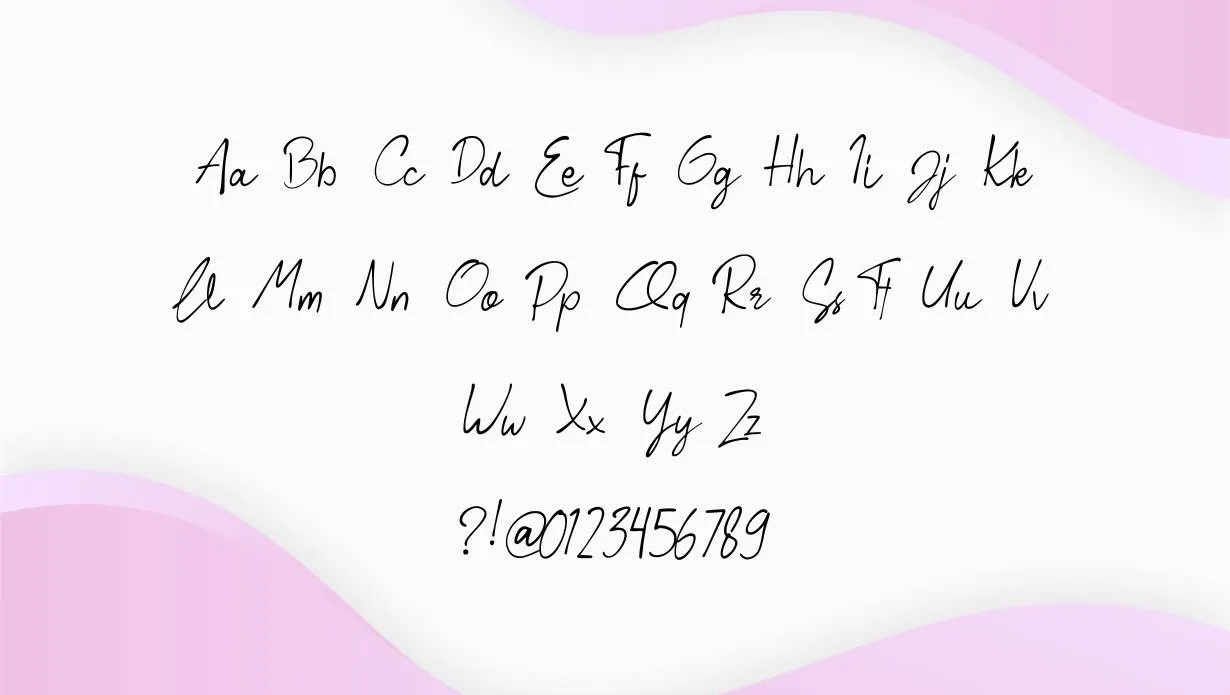
Raflesia font is a graceful and versatile typeface known for its elegant and flowing design. Its delicate curves and soft lines make it a popular choice for various applications, from formal invitations and sophisticated greeting cards to stylish branding elements.
This font’s adaptability allows it to blend seamlessly into different design contexts, bringing a refined and polished aesthetic to various projects.